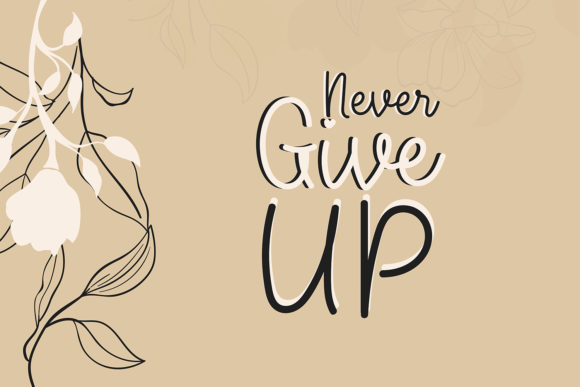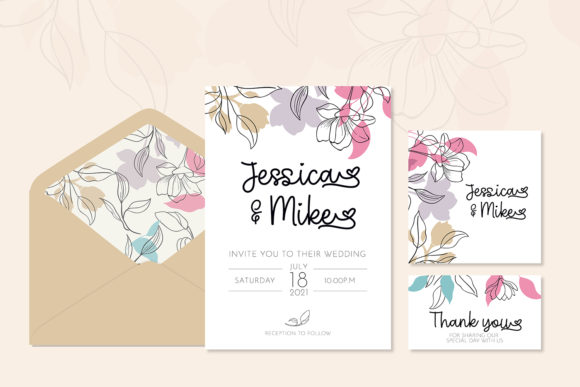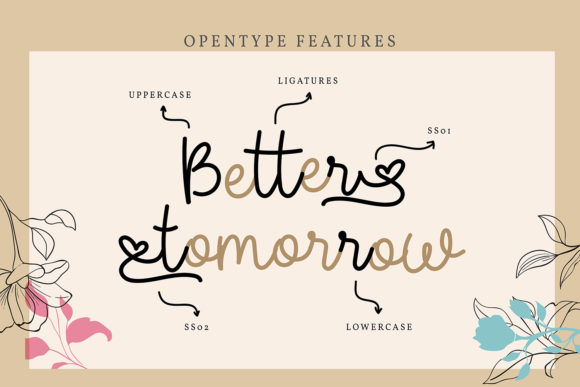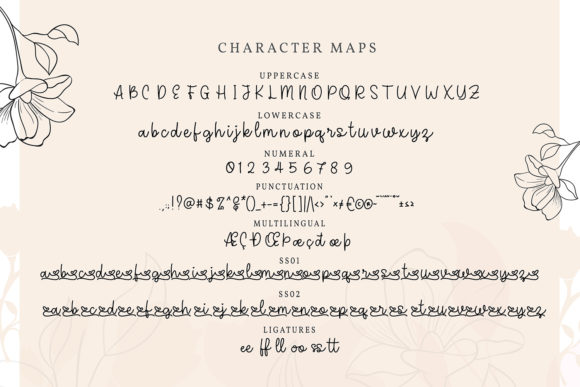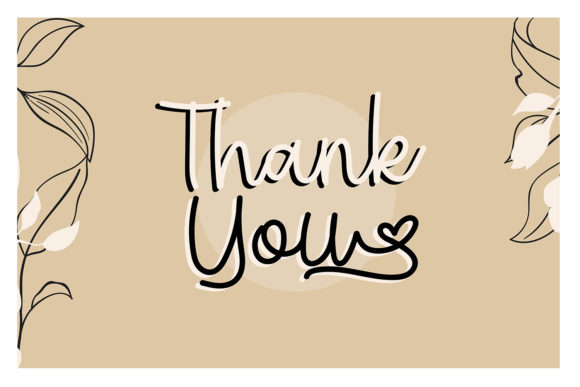
Introducing Allovea Font: Elevate Your Designs with Elegance
Are you a designer or crafter looking for a font that exudes elegance and sophistication? Look no further than Allovea Font. This beautiful script font is designed to add a touch of class and refinement to any project, making it perfect for a wide range of applications, from wedding invitations and branding materials to packaging and digital media.
The Allure of Allovea Font
Allovea Font is an elegant script font that features a very delicate and classy look. Not too thin and not too thick, it strikes the perfect balance between refinement and readability. The font’s balanced and varied design ensures that it can be used in a variety of contexts, from headlines and titles to body text and captions.
Key Features of Allovea Font
- Elegant Script Design: Allovea Font boasts a beautiful, flowing script design that is sure to add a touch of sophistication to any project.
- PUA Encoded: This font is PUA (Private Use Area) encoded, which means that you can access all of the beautiful glyphs and swashes with ease.
- Balanced and Varied: Allovea Font is designed to be balanced and varied, making it perfect for use in a wide range of applications.
- Easy to Use: With its PUA encoding, Allovea Font is easy to use and allows you to access all of the font’s features without requiring any special software or technical expertise.
Why Choose Allovea Font?
- Add a Touch of Elegance: Allovea Font is the perfect way to add a touch of elegance and sophistication to any project.
- Versatile: This font is versatile and can be used in a wide range of applications, from print materials to digital media.
- High-Quality Design: Allovea Font is designed to the highest standards, ensuring that it looks great in any context.
- Easy to Use: With its PUA encoding, Allovea Font is easy to use and requires no special software or technical expertise.
Using Allovea Font in Your Designs
Allovea Font is easy to use in a variety of design applications. Here are a few tips for getting the most out of this beautiful font:
- Pair it with Other Fonts: Allovea Font pairs well with a wide range of other fonts, making it easy to create visually appealing combinations.
- Experiment with Different Sizes: Don’t be afraid to experiment with different font sizes to find the perfect balance for your design.
- Take Advantage of Swashes and Glyphs: With its PUA encoding, Allovea Font comes with a range of beautiful swashes and glyphs that can be used to add a touch of elegance to your designs.
In conclusion, Allovea Font is a beautiful and elegant script font that is perfect for designers and crafters looking to add a touch of sophistication to their projects. With its balanced and varied design, PUA encoding, and high-quality design, Allovea Font is the perfect choice for a wide range of applications. Whether you’re working on a wedding invitation, branding materials, or digital media, Allovea Font is sure to impress.